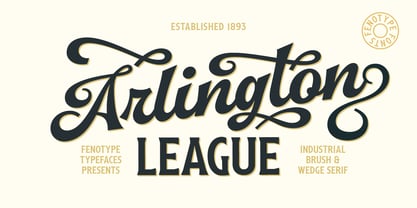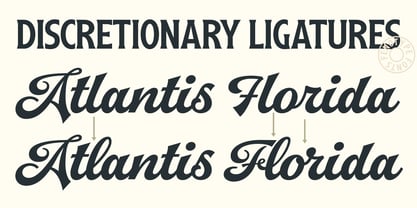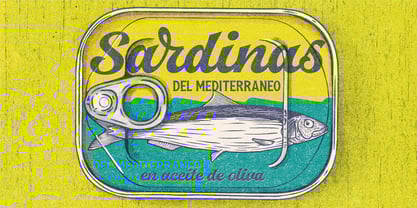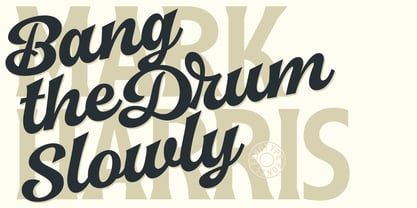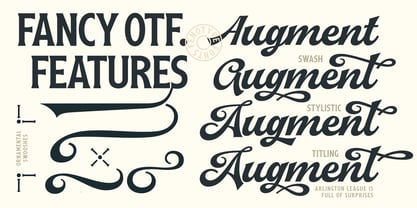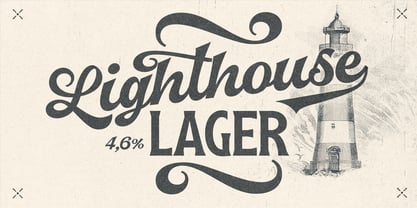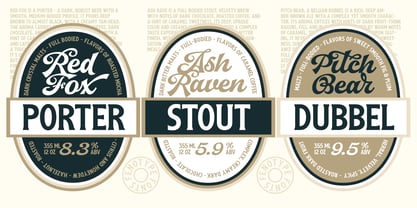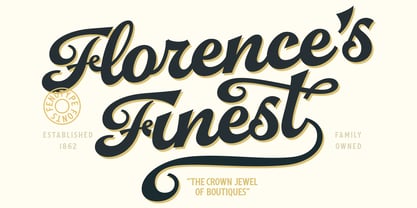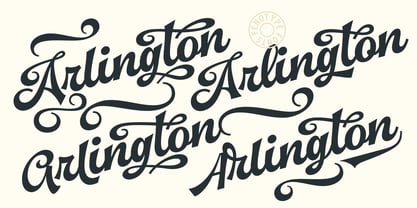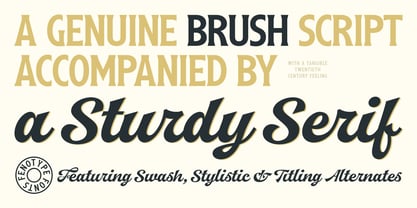
Arlington League
Die Schriftfamilie Arlington League wurde von Emil Karl Bertell entworfen und von Fenotype veröffentlicht. Arlington League enthält 2 Stile und Familienpaketoptionen.
Arlington League is a vintage-inspired type pair featuring a sharp cut brush script and a low-contrast condensed wedge serif. Ideal for adding a touch of classic style to sport logos, beer labels, and baseball scripts, the brush script comes equipped with extensive OpenType features. These include Swash, Stylistic, and Titling alternates for expressive character variations, along with a selection of ornamental shapes and swooshes accessible through Stylistic Alternates 1.
Emil Bertell has done it all. Having published his first font files at 16, he was considered to be an international free-font hero while still in his teens. He went on to attend design college, drop out, and become a well-known graphic designer and illustrator. Now one of the most successful type designers from the Nordic countries on MyFonts, the Finland-based designer said in his Creative Characters interview that he’s “had an obsession with visual culture from the beginning.” Before turning his attention to type design full-time, Emil had a very successful career as an award-winning illustrator. “Illustration became my main livelihood,” he said. “I drew painstaking pencil illustrations for magazines, advertising, stamps, etc. I often designed my own fonts for festivals and hand-drew the lettering posters; I also did a few pencil illustrations based on lettershapes, and that got out of hand, so I had to do a lot more of them.” In 2012 he finally made the switch and committed all of his time to type design. Emil first saw success with his Billboard typeface. “It became my first Rising Star on MyFonts and made me realize that I could actually make a living by designing fonts,” he said. “I realized that there’s actually a market out there that I could become a part of.” Throughout the rest of that year he began to see even more success. It began in January, when his font, Mishka, was featured in our Most Popular Fonts of 2011 list. He went on to find a way to bookend the year and was listed among the Most Popular Fonts of 2012 with his Mercury Script design. Since then, his foundry’s success has continued on with best sellers like Voyage and The Carpenter. Fans of the foundry have a lot to look forward to in the near future. Emil will continue to produce beautiful scripts (some coming soon to MyFonts!) and has plans to expand his business.